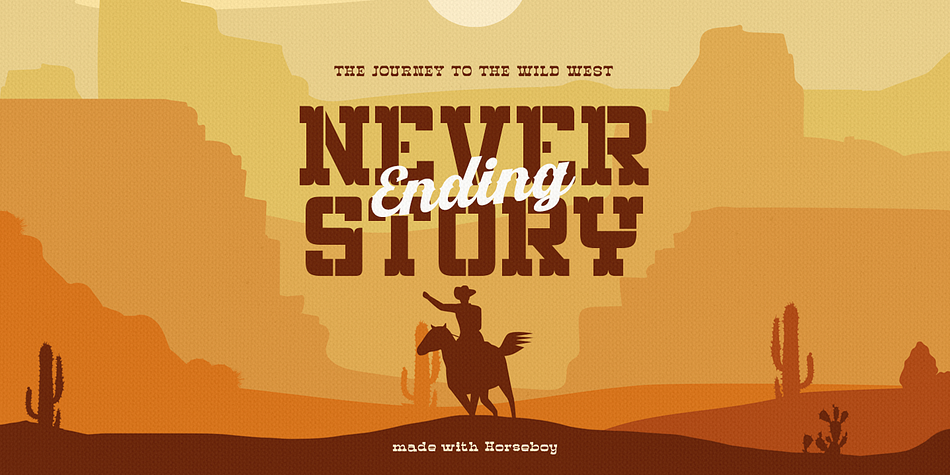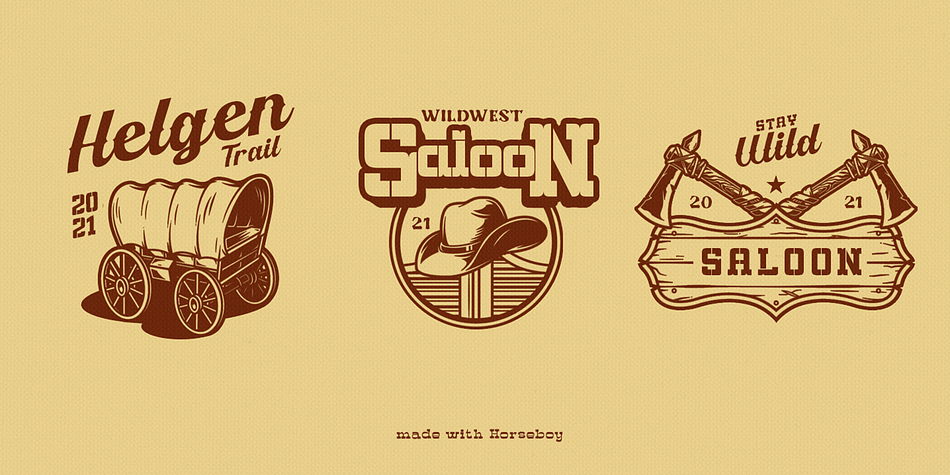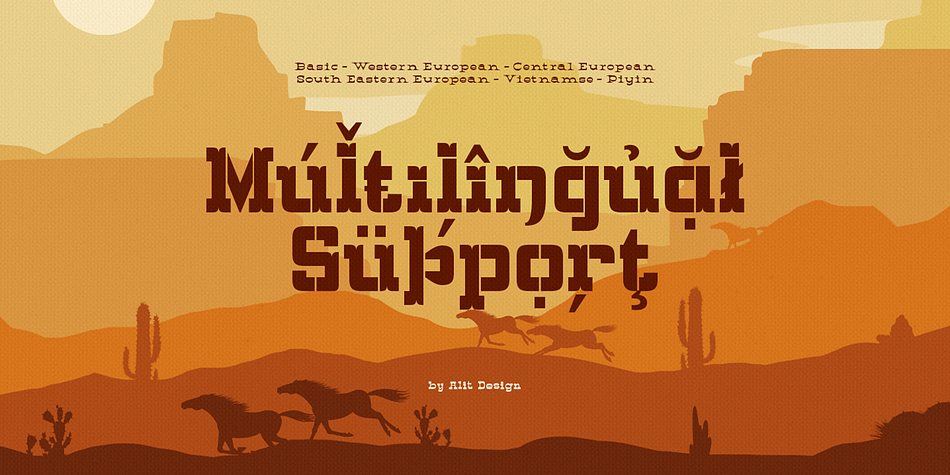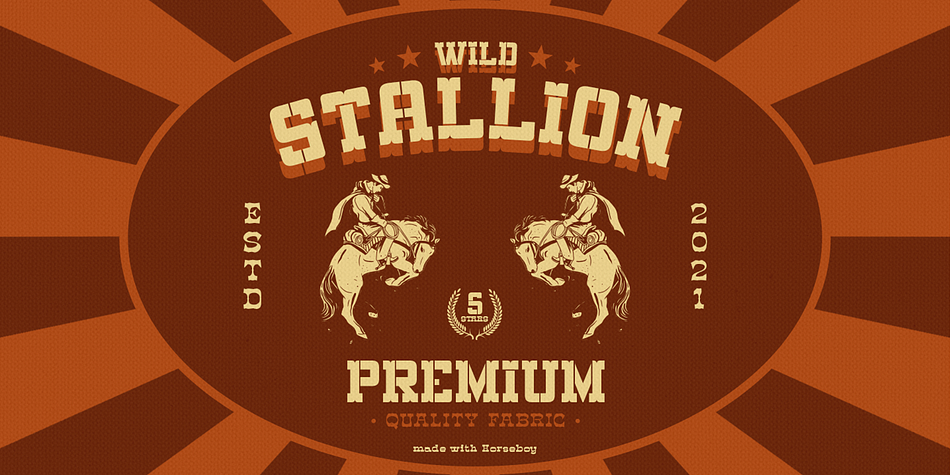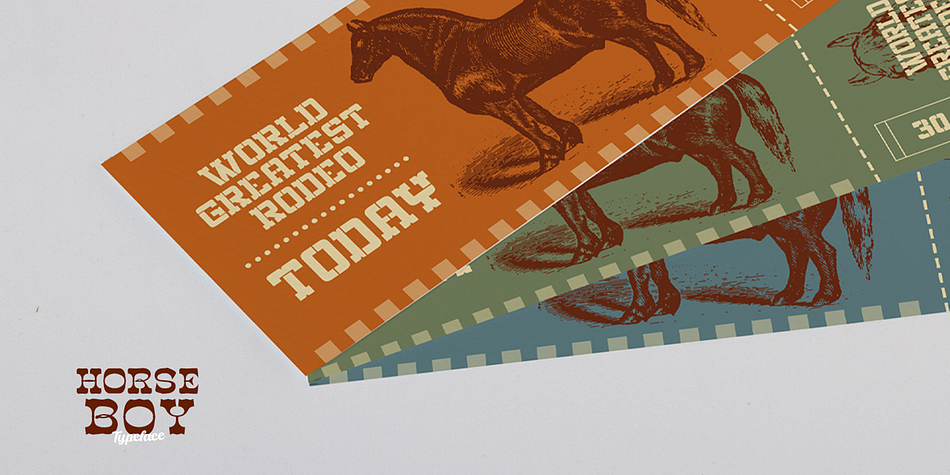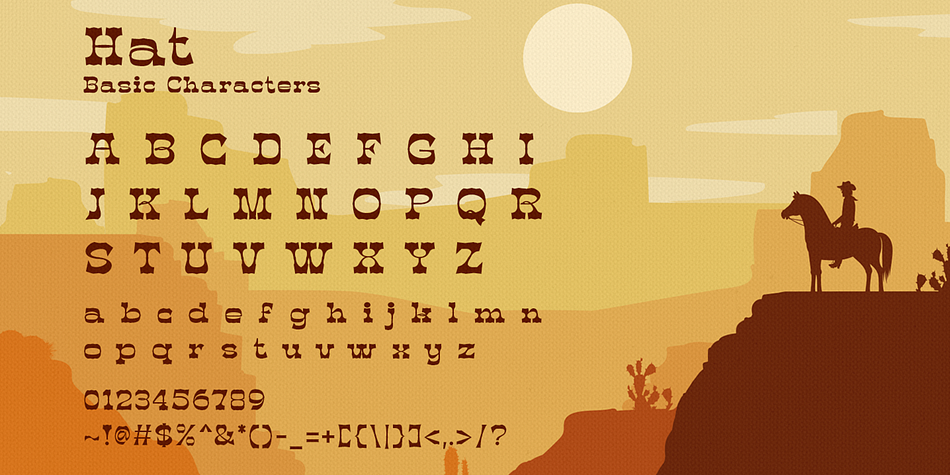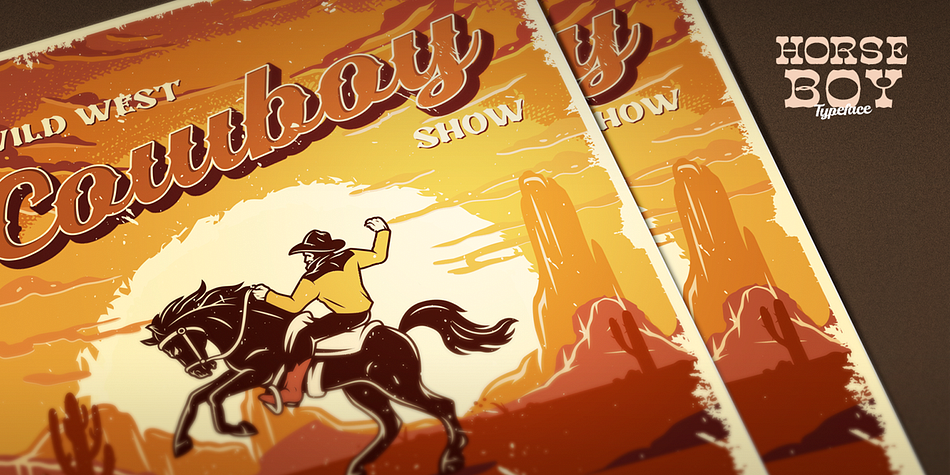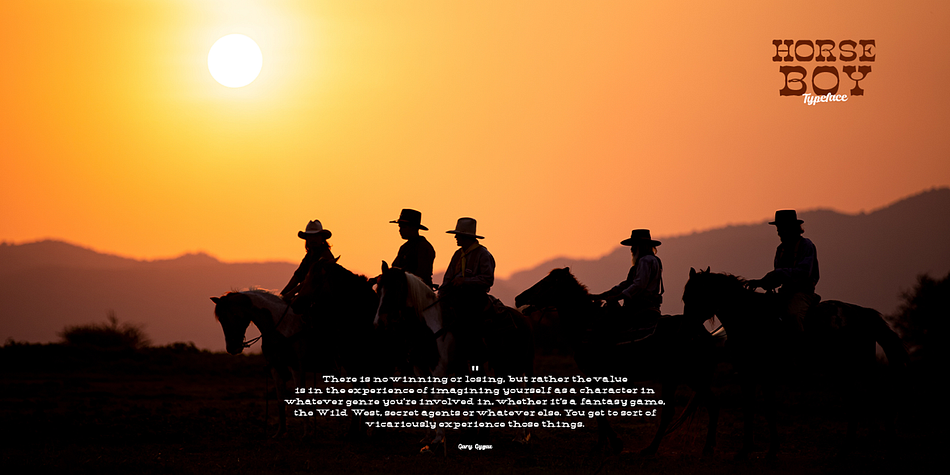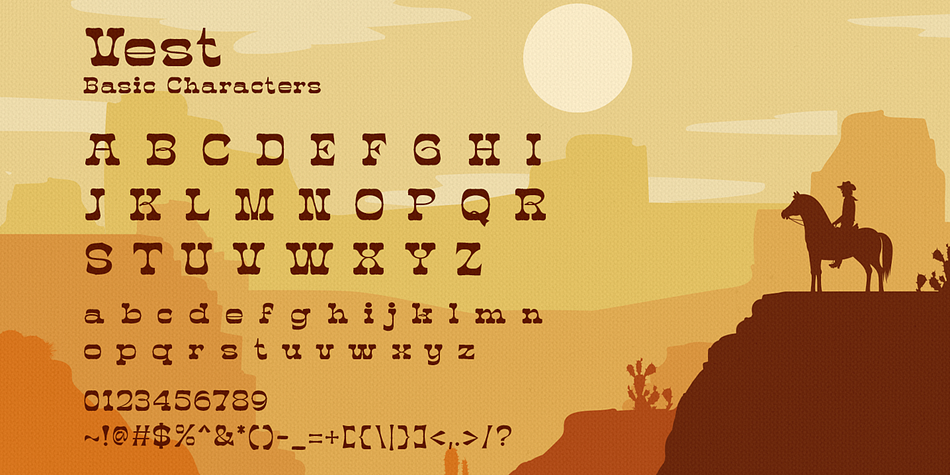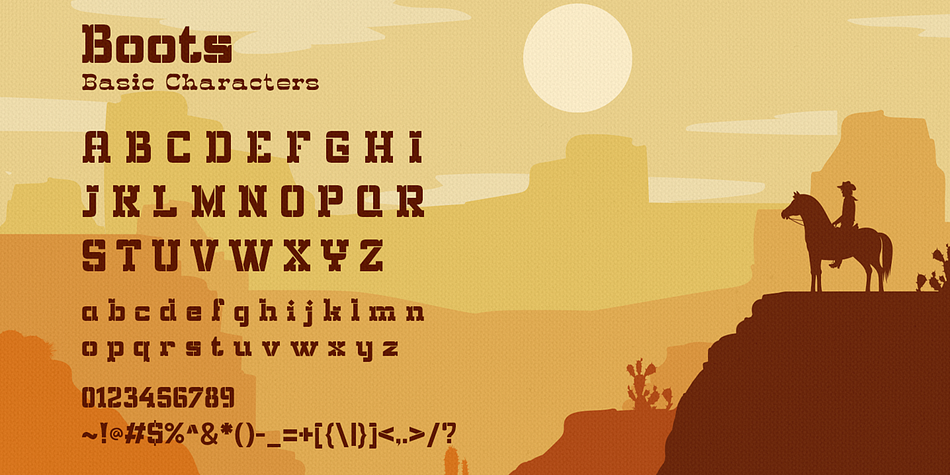
Horse Boy
Designed by Alit Suarnegara, Horse Boy is a script, western and wood type font family. This typeface has six styles and was published by Alit Design.
Introducing Horse Boy Typeface
The Horsebow typeface is inspired by the vintage cowboy western style. The Horseboy font family consists of 6 very cool fonts when combined to create western and cowboy themed designs.
Can be used for the design of alcoholic beverage packaging, tattoo, poster, pomade designs, barbershops and so on with the western American concept.